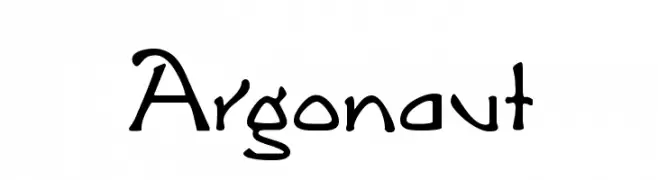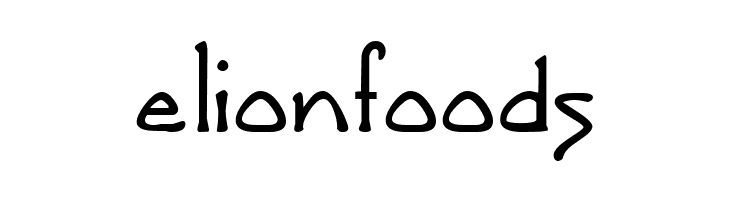
A playful and dynamic font with geometric and whimsical elements.
( Zulkhairi M Saleh - fontbundles.net/zulkhairilettering )
A modern-vintage serif font with arrow-like serifs and artistic flair.
( Fonts by Nurul Kamal - Personal-use only. For commercial use please contact owner. )
A decorative and elegant font with cursive and bold elements, perfect for artistic projects.
A dynamic and expressive script font with modern flair and fluid strokes.
( Fonts by Maulana Creative )
A playful, bold font with rounded, bubbly letterforms.
( blue studio09 )
An elegant, cursive font with flowing, sophisticated letterforms.
( Fonts by antoniorodriguesjr.com )